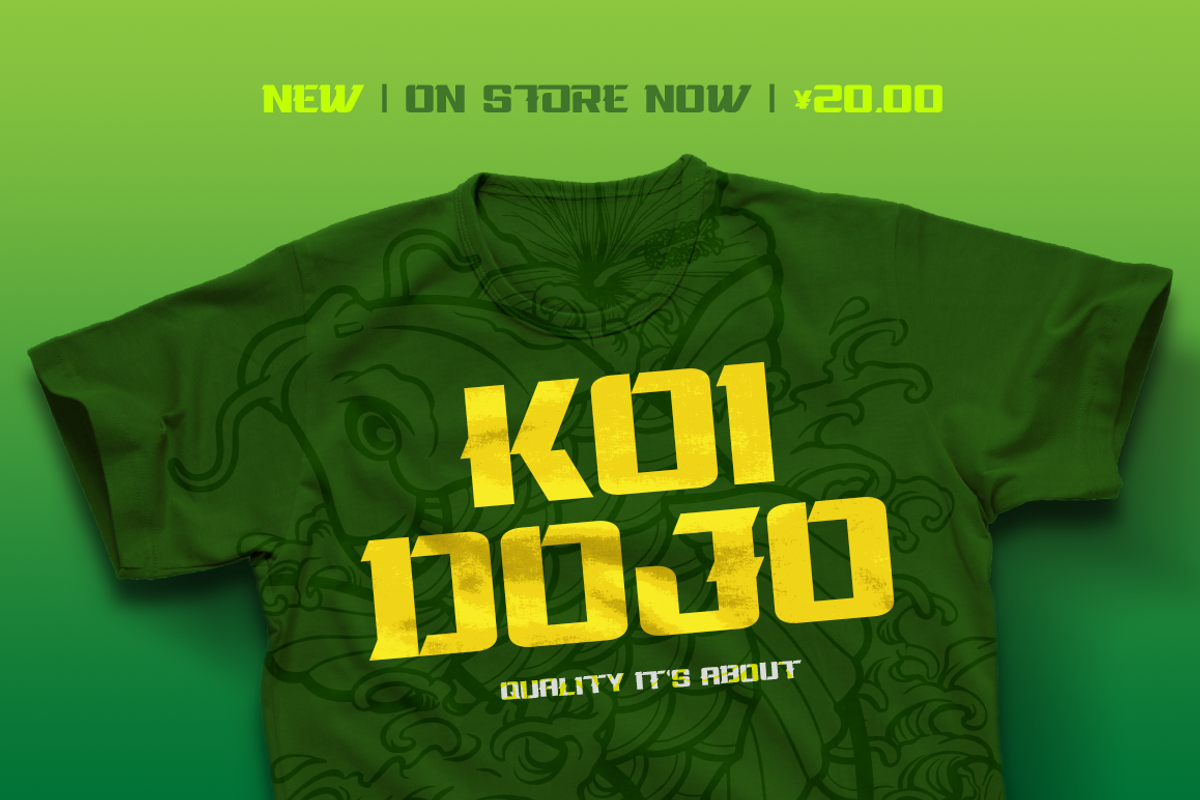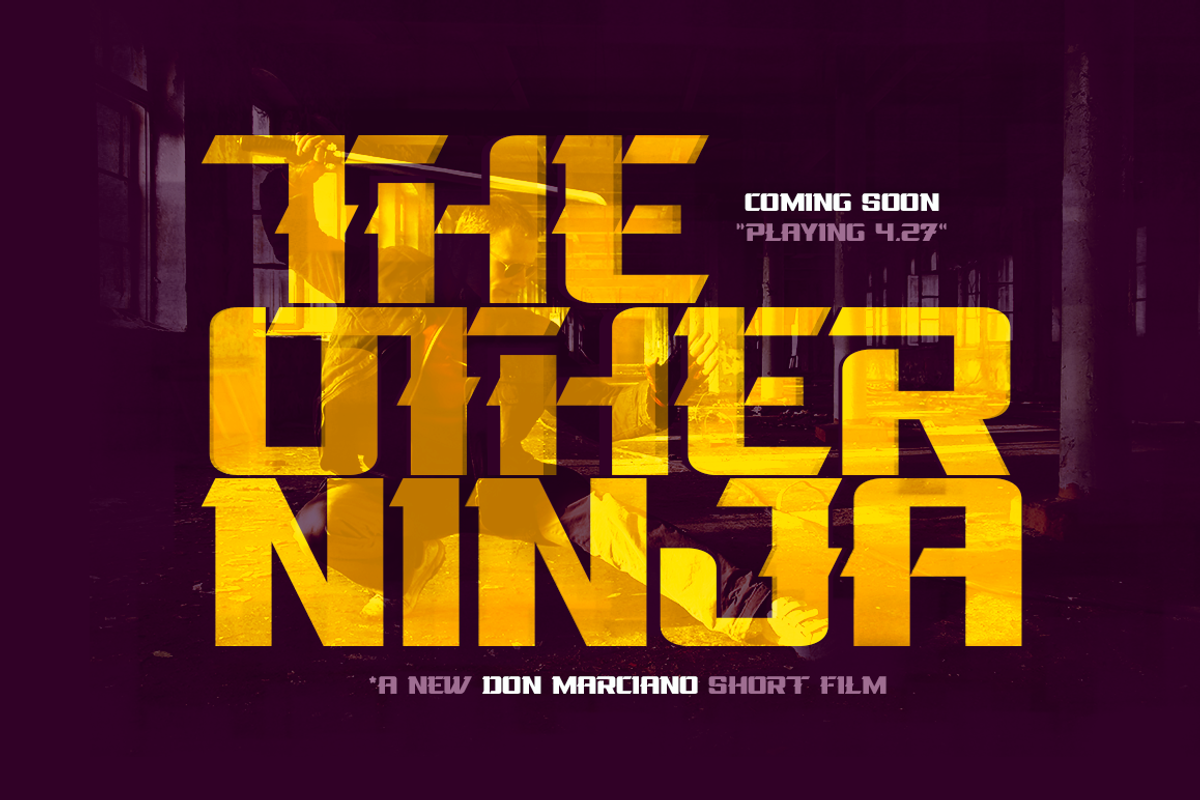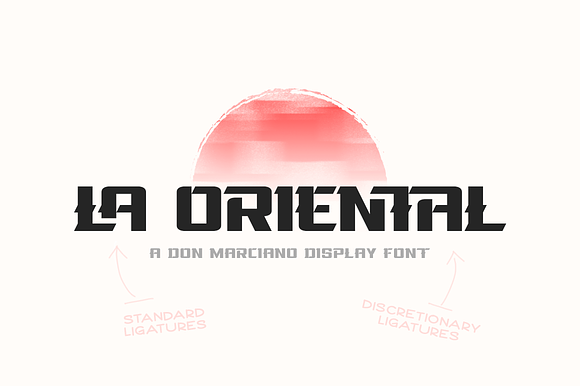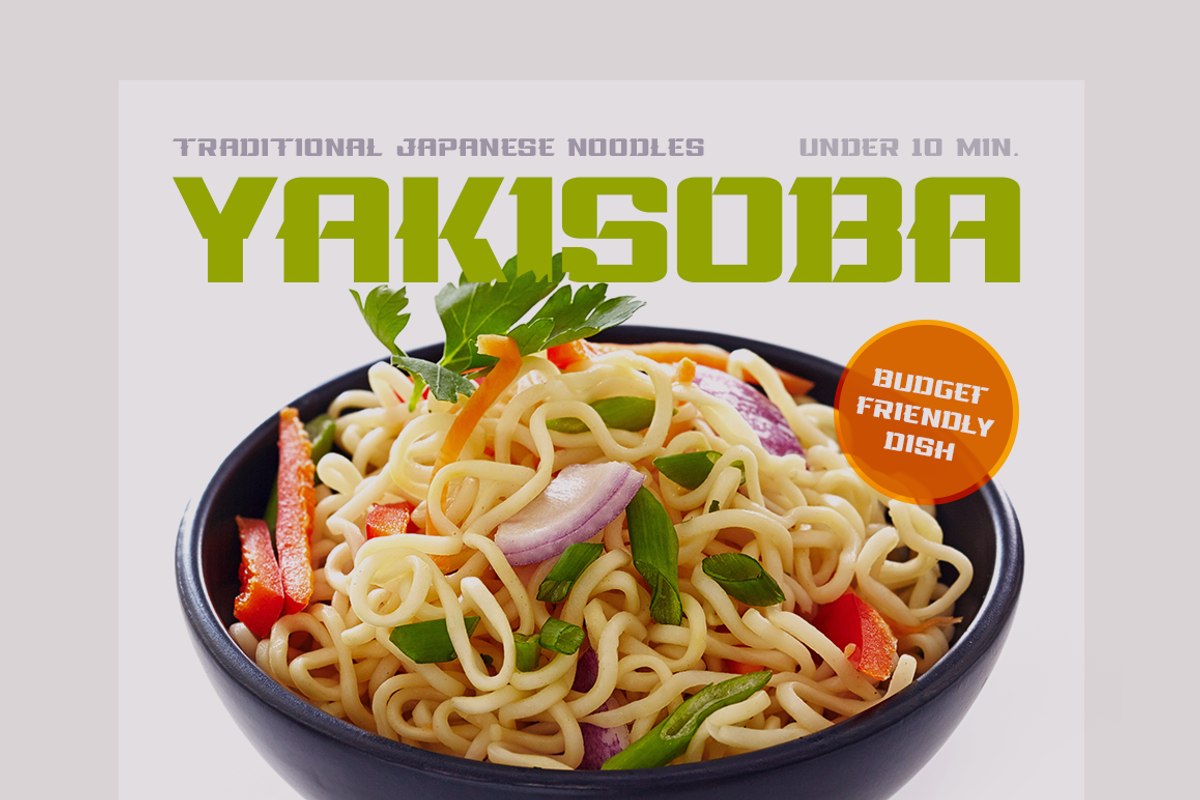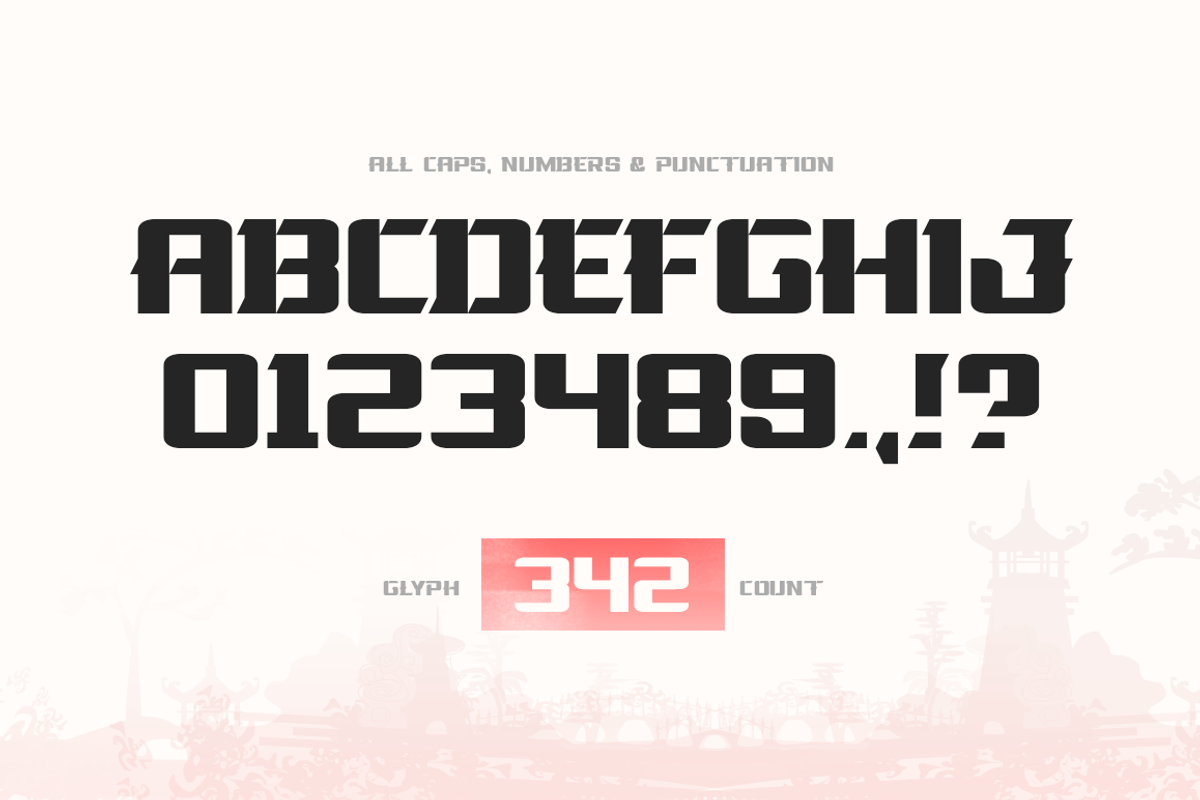
La Oriental Font
La Oriental is a strong bold style font, design for a sub-brand of pre-cooked oriental theme food packages that needed to transmit familiarity and confidence, the real macro objective of the brand had to evoke pride in the tradition of cooking; we created a display font with clean edges to help it create the feeling of constant movement, La Oriental comes from a place where practice makes perfection and dishonor only applies to give up.
Why La Oriental Font is worth a look
La Oriental Font by DonMarciano fits naturally into Branding, posters, packaging, typography.